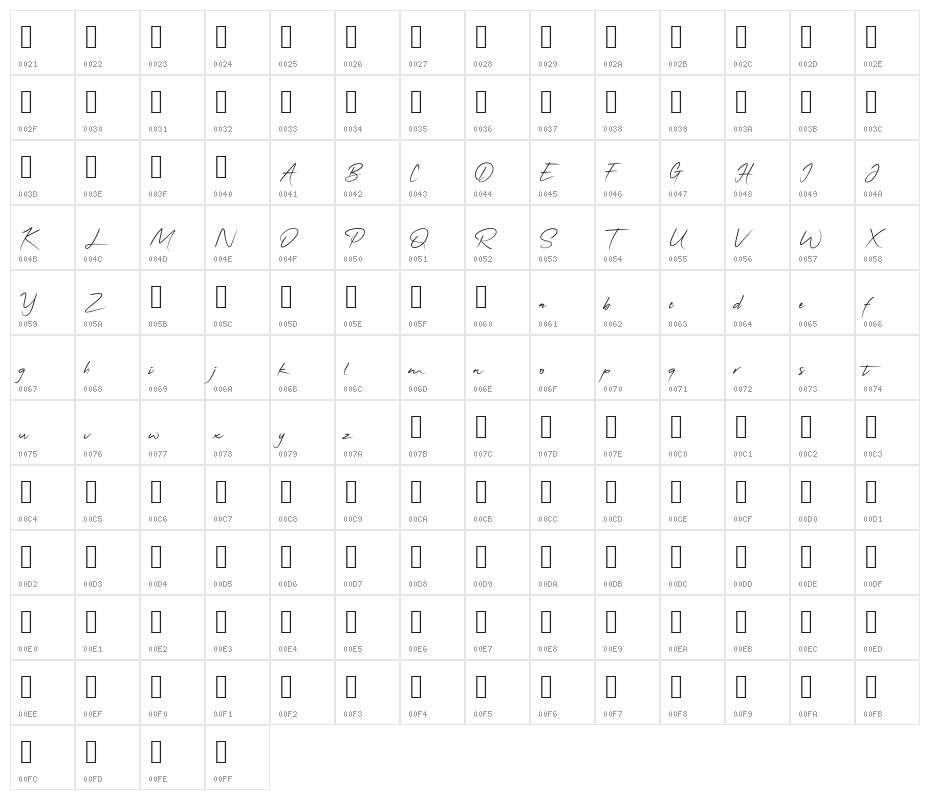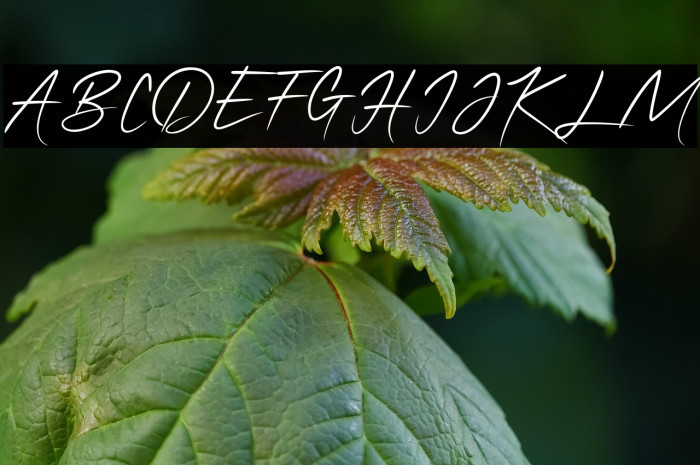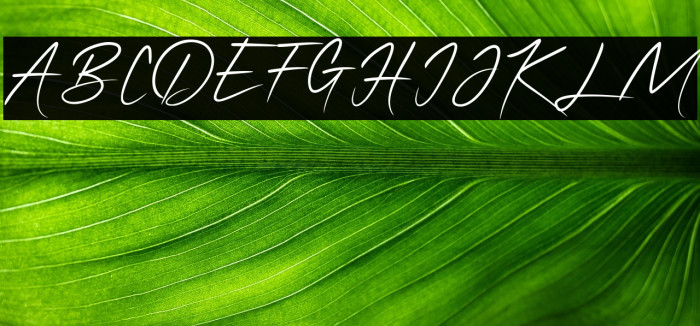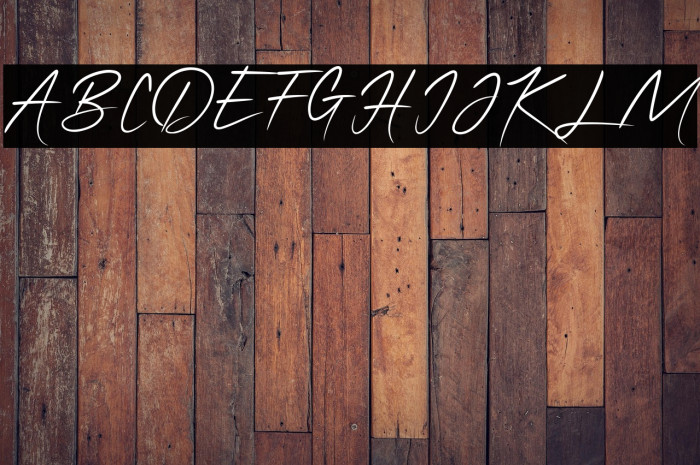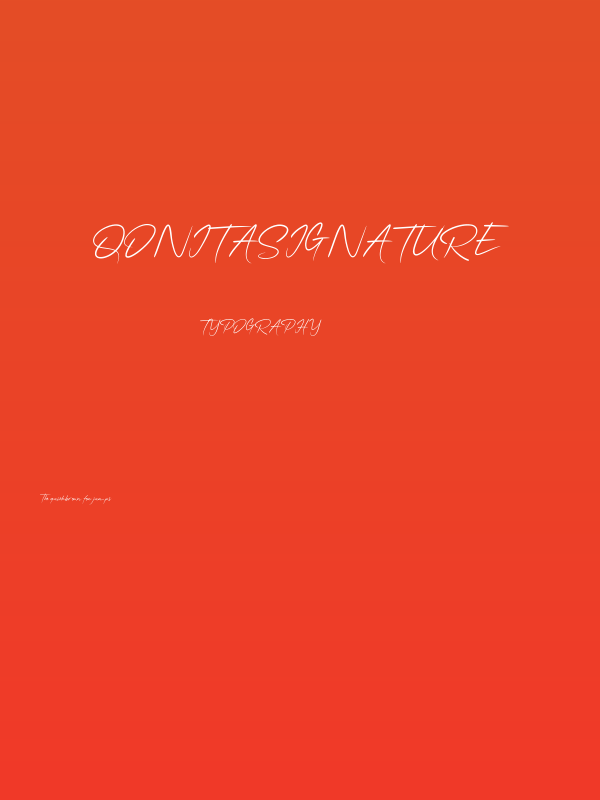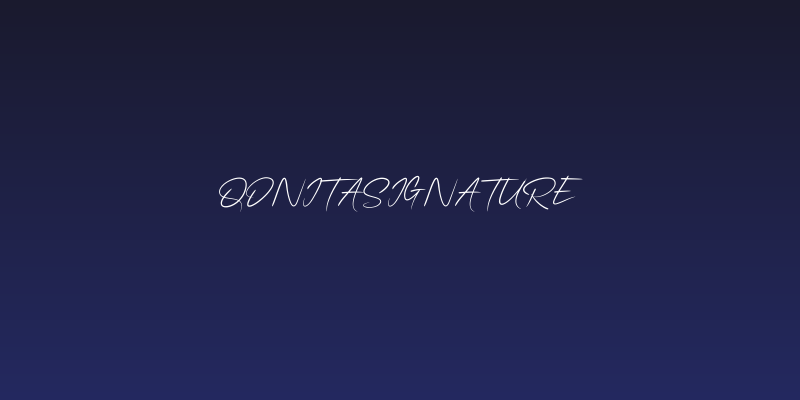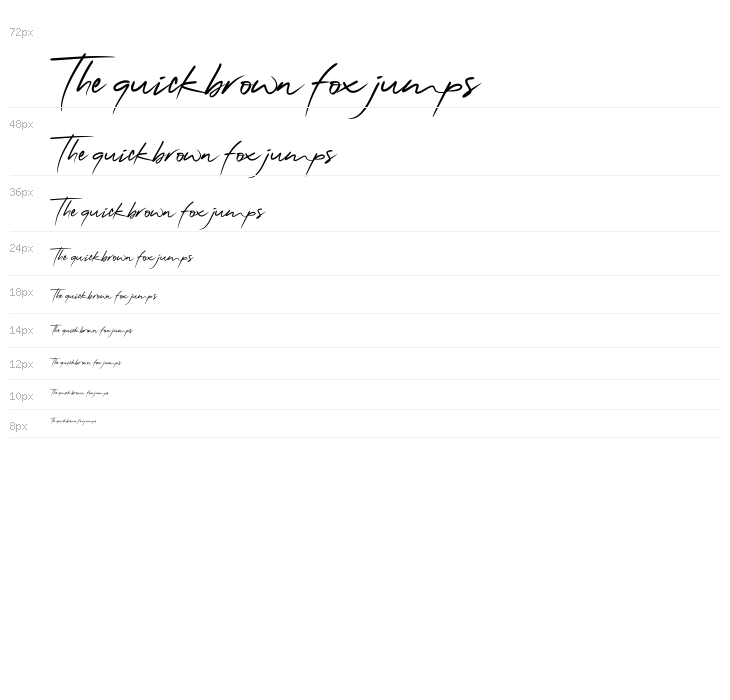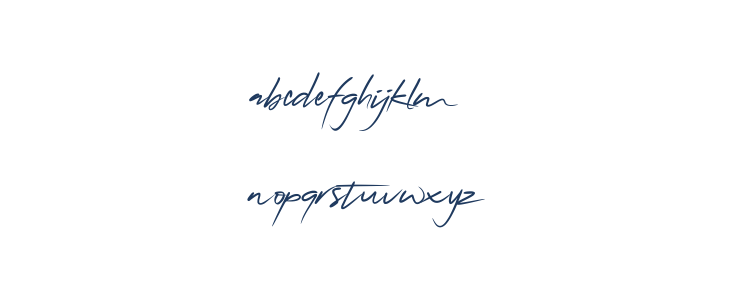
QonitaSignature Font
QonitaSignature Description
This font exudes elegance and sophistication with its fluid, cursive style. The uppercase letters are tall and graceful, with sweeping curves and delicate strokes that convey a sense of movement and fluidity. The lowercase letters maintain this fluidity, featuring smooth connections and a natural flow that mimics handwriting. The overall appearance is refined and stylish, making it ideal for projects that require a touch of class and personalization. The font's thin strokes and high contrast between thick and thin lines add to its delicate and airy feel, while the character spacing is slightly wide, enhancing readability.